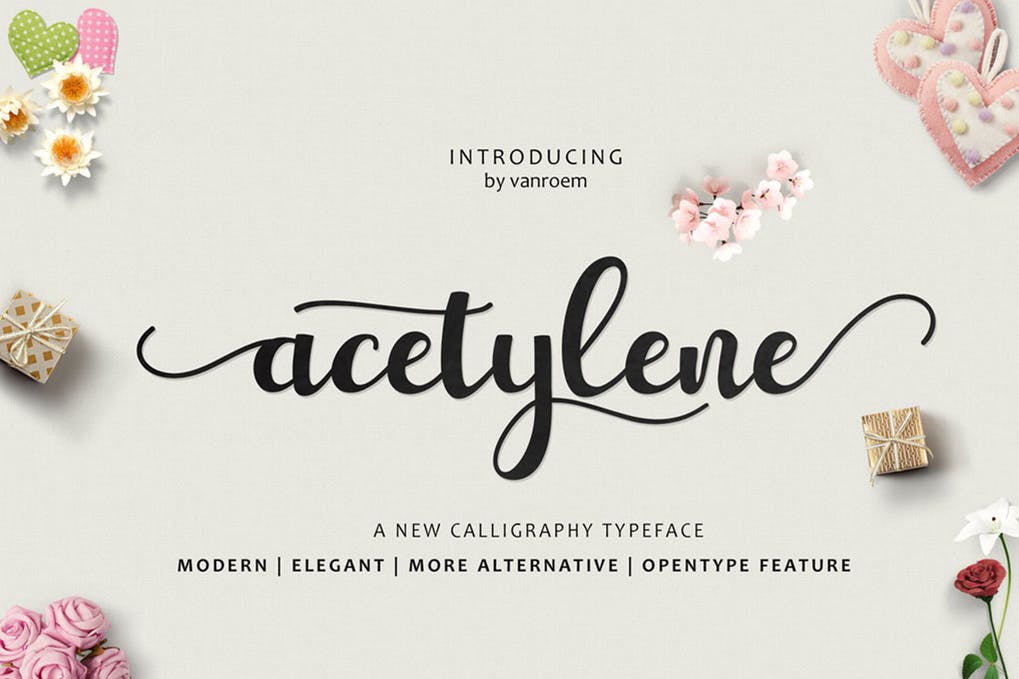
Acetylene Script Font is a new modern calligraphy Script fonts, combines from copperplate to contemporary typeface, classic and elegant touch. Acetylene Script is guaranteed to make your text stand out – perfect for logos, printed quotes, invitations, cards, product packaging, headers and whatever your imagination holds. Acetylene Script features 509 glyphs and alternate character contain … Continue reading Acetylene Font